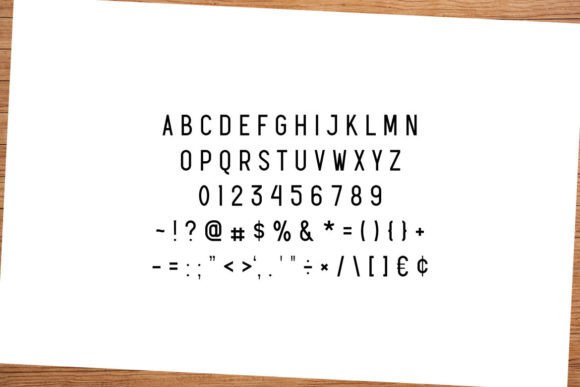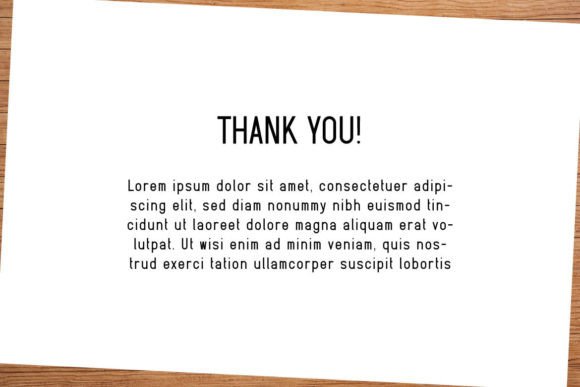
Have you ever stared at a blank page, waiting for inspiration to strike? You’re not alone. As a designer, I’m sure you’ve experienced that moment where the perfect font is all that’s missing to bring your vision to life. That’s where the Activity Font comes in – a cool and modern sans serif font that’s sure to elevate your next project.
This versatile font is perfect for any topic, from sleek tech designs to vibrant marketing campaigns. With its clean lines and modern aesthetic, Activity Font is an incredible asset to any font library. Whether you’re a seasoned designer or just starting out, this font is sure to bring your creations to the next level.
Activity Font Key Features
- Font Family: Activity Font is a sans-serif font family designed for digital use, making it ideal for a wide range of applications, including signage, wayfinding, and digital displays.
- Character Set: The font family includes a comprehensive character set, including uppercase and lowercase letters, numbers, punctuation marks, and a range of symbols and glyphs.
- Size: The font is available in 6 weights, ranging from Light to Black, allowing for flexibility in design and typography.
- Unique Characteristics: The font’s distinctive design features a dynamic, energetic feel, with rounded edges and subtle flair, making it perfect for applications that require a sense of movement and activity.
Activity Font Review
Activity Font is a modern sans-serif typeface that’s sure to catch your eye. I love how it ✨ brings a sense of energy and dynamism to any design project. The font’s geometric shapes and clean lines make it perfect for digital interfaces, logos, and branding materials.
The font’s versatility is another major plus. It ✨ works well in a variety of contexts, from formal presentations to casual social media posts. The font’s extensive character set and language support make it a great choice for global brands and businesses.
- ✨ Modern and energetic aesthetic
- ✨ Versatile and suitable for various design contexts
- ✨ Extensive character set and language support
- ⚠️ May not be suitable for traditional or formal designs
- ⚠️ Can feel a bit cold and impersonal in certain contexts
- ⚠️ May require additional styling to achieve desired look
Overall, Activity Font is a solid choice for designers looking for a modern and energetic typeface. While it may not be perfect for every project, its versatility and extensive character set make it a great addition to any design arsenal.
Getting the Most Out of Activity Font
For the best results, use Activity Font in conjunction with bold and italic text to add emphasis to your content. Experiment with different font sizes and colors to create visually appealing designs.
Activity Font is perfect for:
- Creating engaging social media posts
- Designing eye-catching presentations
- Adding a playful touch to digital invitations
- Developing a unique brand identity
Alternatives to Activity Font
Activity Font is a sans-serif font designed for digital products. However, it may not be suitable for all design needs. Here are some alternatives to consider:
1. Inter Font
Inter Font is a modern sans-serif font designed for digital products. It features a clean and minimalistic design, making it perfect for headlines and body text. Inter Font is a great alternative to Activity Font for designers who want a more neutral and versatile font.
Comparison to Activity Font: Inter Font has a more geometric design, whereas Activity Font has a more rounded feel. Inter Font is also more versatile and suitable for a wide range of design projects.
Montserrat Font is a sans-serif font inspired by urban typography. It features a geometric design with a strong, urban feel. Montserrat Font is a great alternative to Activity Font for designers who want a font with a strong personality and a touch of urban grit.